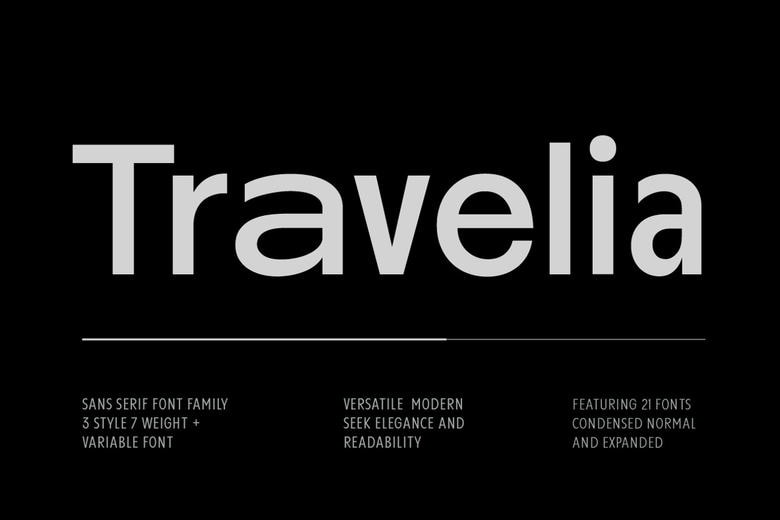
Travelia Font Family
Travelia Sans Serif is a clean and contemporary font for everyone who wants more chic and legibility. Included in the package are 21 fonts with three style types; Condensed, Normal, and Expanded, which were designed taking into consideration designers’ requirements.
Travelia has 7 weights available – Light to Black, which makes it suitable for various projects no matter the need for branding, editorial, internet, or advertisement designs.
Travelia Sans Serif Font Family